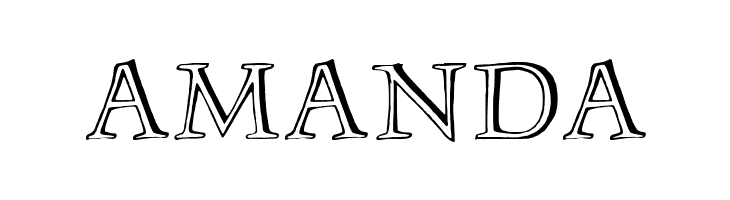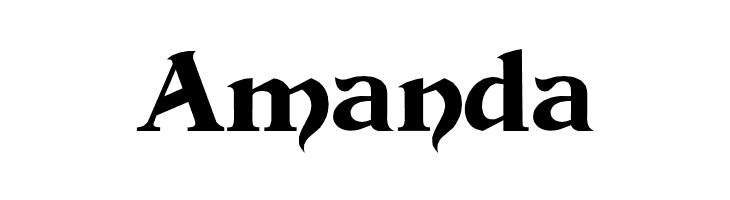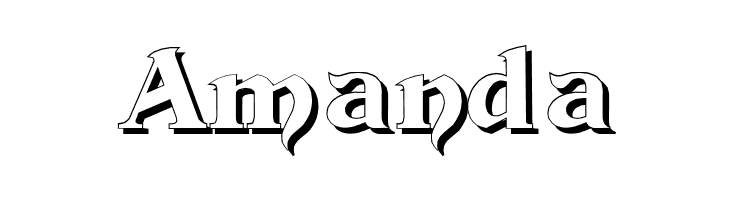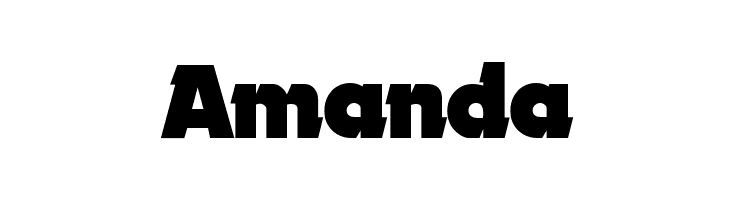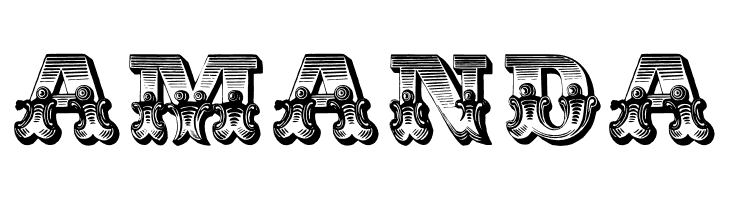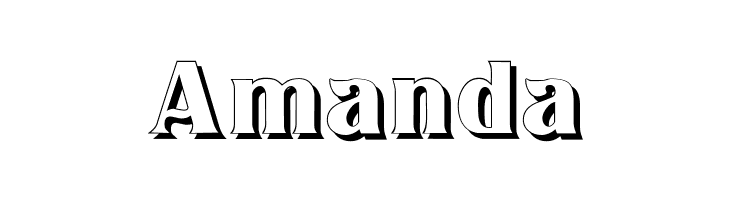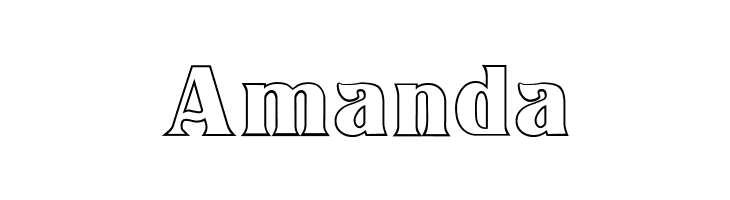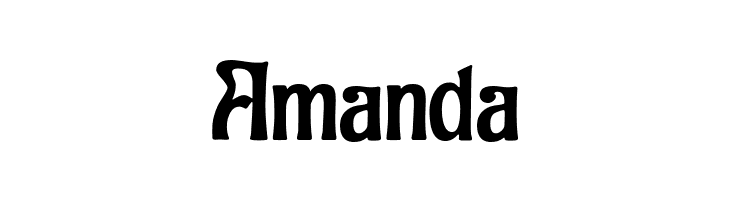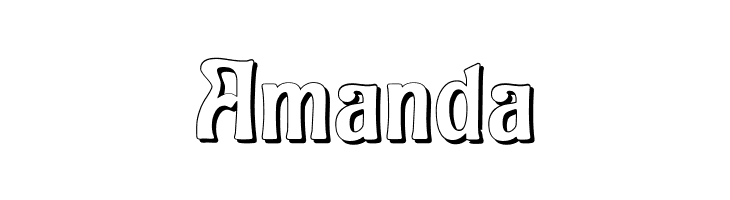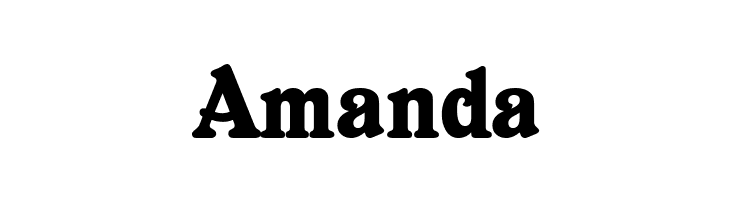
A classic serif font with elegant, sharp serifs and a timeless style.
A bold, medieval-inspired font with angular serifs and medium contrast.
A bold, decorative font with a shadow effect and sharp serifs.
A bold, impactful font with thick strokes and a slightly condensed style.
An ornate, vintage-style decorative font with intricate detailing.
A bold, decorative font with a medieval-inspired aesthetic.
A bold, shadowed font with decorative flair and three-dimensional appearance.
A bold, rounded serif font with a strong, playful presence.
A bold, three-dimensional serif font with a striking and modern design.
A bold, playful font with a shadow effect for a three-dimensional look.
A bold, playful font with rounded edges and a vintage-modern appeal.
Ornate, shadowed font with intricate detailing and a vintage aesthetic.
An ornate and decorative font with intricate patterns and vintage elegance.
An ornate, decorative serif font with intricate patterns and a vintage flair.
An elegant serif font with high contrast and sharp serifs, blending classic and decorative styles.
A bold, decorative font with intricate patterns and a vintage flair.
A bold, high-contrast font with dynamic curves and elegant style.
A bold, shadowed font with a classic yet playful style.
A bold, decorative font with playful curves and flourishes.
Bold, playful font with a distinctive shadow effect for a three-dimensional look.
A classic serif font with bold, well-defined characters and a vintage aesthetic.
A bold, geometric font with Art Deco influences, featuring tall, narrow characters.
An ornate and decorative font with intricate serifs and embellishments.